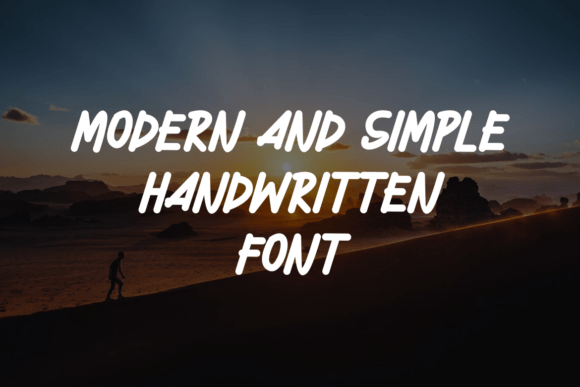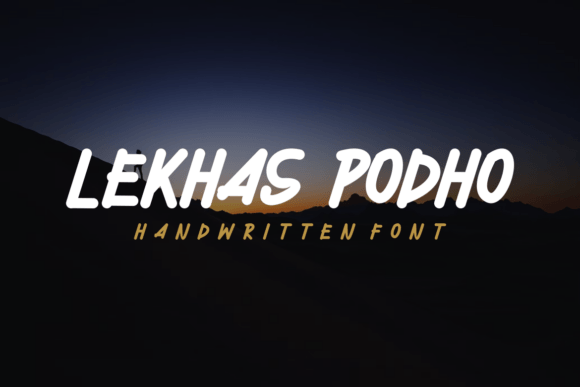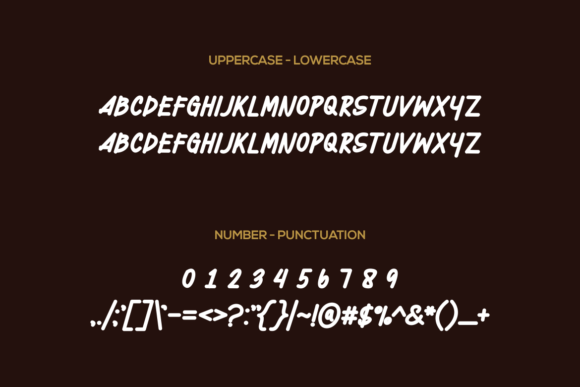
Introduction to Lekhas Podho Font
Remember that moment when you stumbled upon the perfect design resource for your project? The one that took it from bland to grand, and elevated your creative vision to new heights? For designers, finding the right font can be the game-changer that sets their work apart. And, if you’re one of those creatives on the hunt for the perfect typeface, we’ve got you covered. Introducing the Lekhas Podho Font, a free download that’s about to become your go-to design companion.
With its bold and smooth handwritten style, Lekhas Podho Font brings a modern and casual vibe to any project. Its rounded, flowing strokes create a warm and approachable aesthetic that’s perfect for logos, quotes, posters, branding, and social media designs. Whether you’re working on a high-quality campaign or a fun, creative project, this versatile typeface is sure to bring energy and personality to your work.
Lekhas Podho Font
- High-quality font suitable for creative projects, including graphic design and digital art.
- Comes in a transparent background format, allowing for seamless integration with various design elements.
- Designed with a unique aesthetic, making it an ideal choice for projects that require a distinctive and creative look.
Honest Review: Lekhas Podho Font
As a designer, I’m always on the lookout for high-quality design resources that can elevate my creative projects. The Lekhas Podho Font is one such resource that caught my attention. I decided to dive in and see what it’s all about.
What works well: ✨ The font has a unique, elegant design that’s perfect for any project that requires a touch of sophistication. The font family includes a range of weights, from light to bold, which makes it versatile for various design applications. The transparent background is a great feature that allows for seamless integration with other design elements.
Overall, the Lekhas Podho Font is a great design resource that’s perfect for personal projects or design students. It’s a high-quality font that’s easy to use and has a lot of potential. I would definitely recommend it to anyone looking for a unique and elegant font.
- Unique and elegant design
- Range of weights (light to bold)
Tips for Getting the Most Out of Lekhas Podho Font
Use the Lekhas Podho Font in conjunction with a transparent background to create a professional-looking design. Experiment with different font sizes and styles to add visual interest to your project. This font is perfect for creating eye-catching headings and titles.
The Lekhas Podho Font is ideal for use in creative projects such as logos, brochures, business cards, and social media graphics. Its high-quality design and transparent background make it a great resource for designers and non-designers alike.